Devolver Digital Font
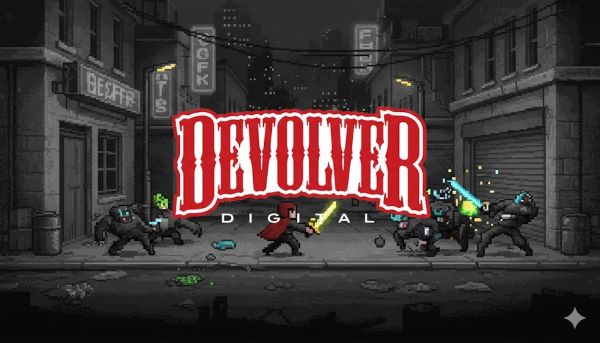
Devolver Digital has revolutionized indie game publishing with its bold, rebellious brand identity perfectly captured through distinctive western-inspired typography. The logo showcases Black Hawk, a rugged typeface designed by John Singer that embodies the publisher’s unconventional spirit and frontier attitude toward gaming. Its authentic Old West aesthetic makes it exceptional for vintage-themed projects, retro gaming content, wild west branding, and edgy promotional designs.